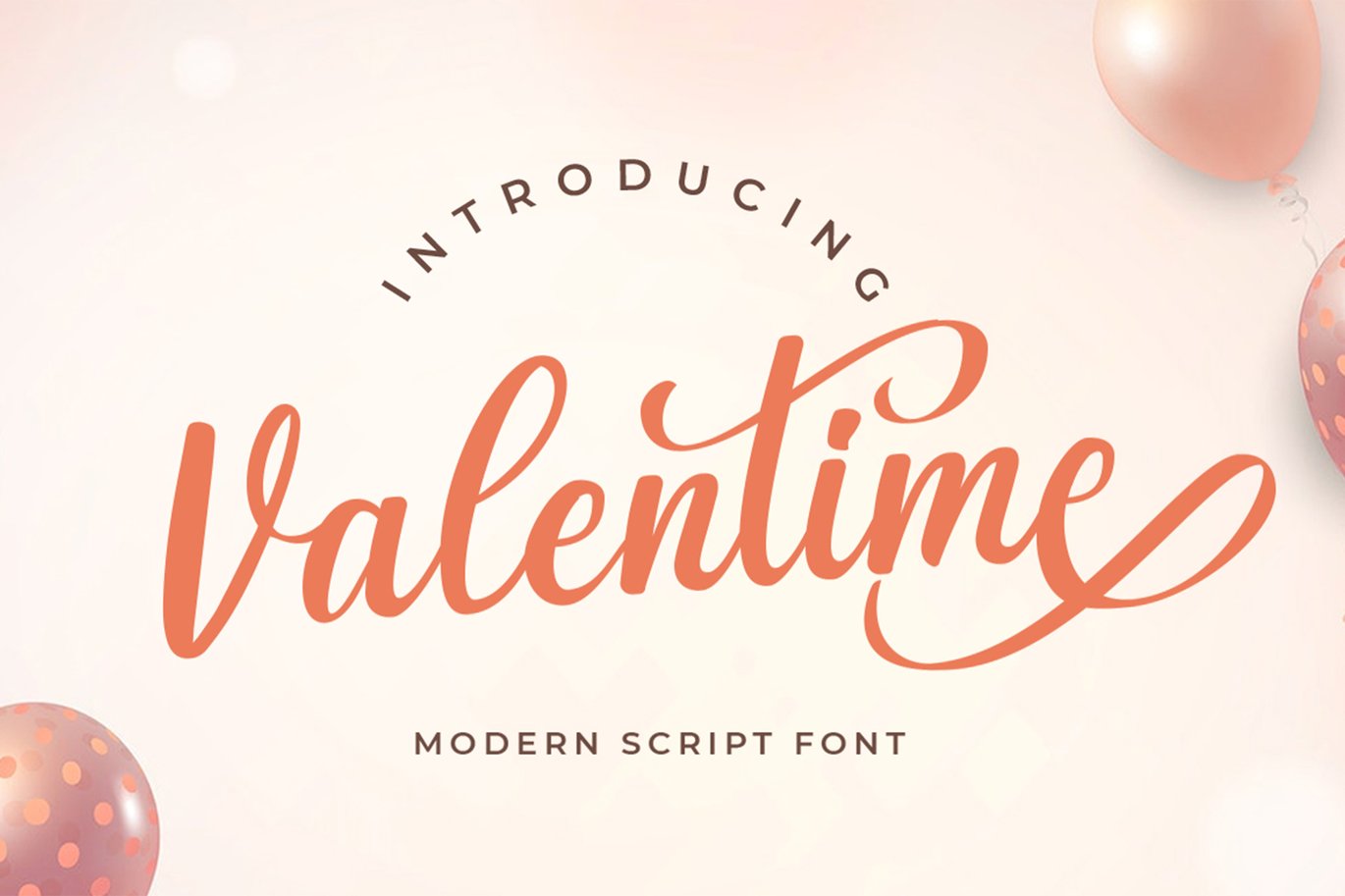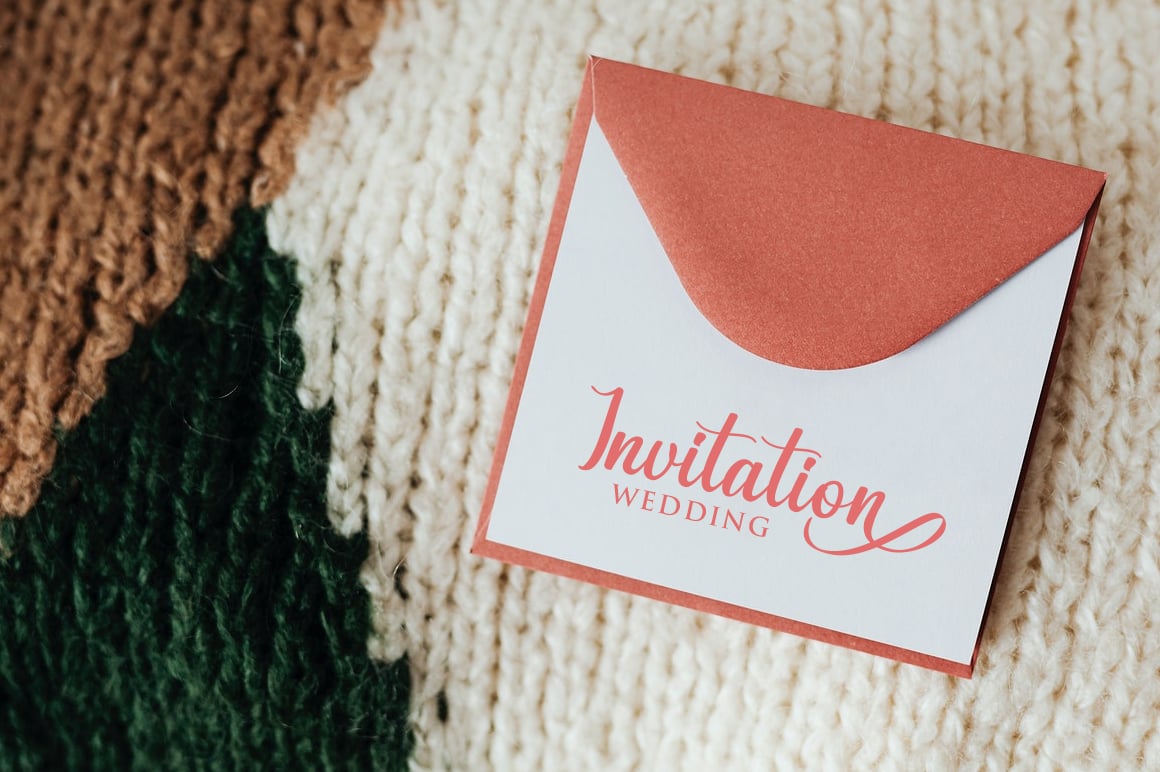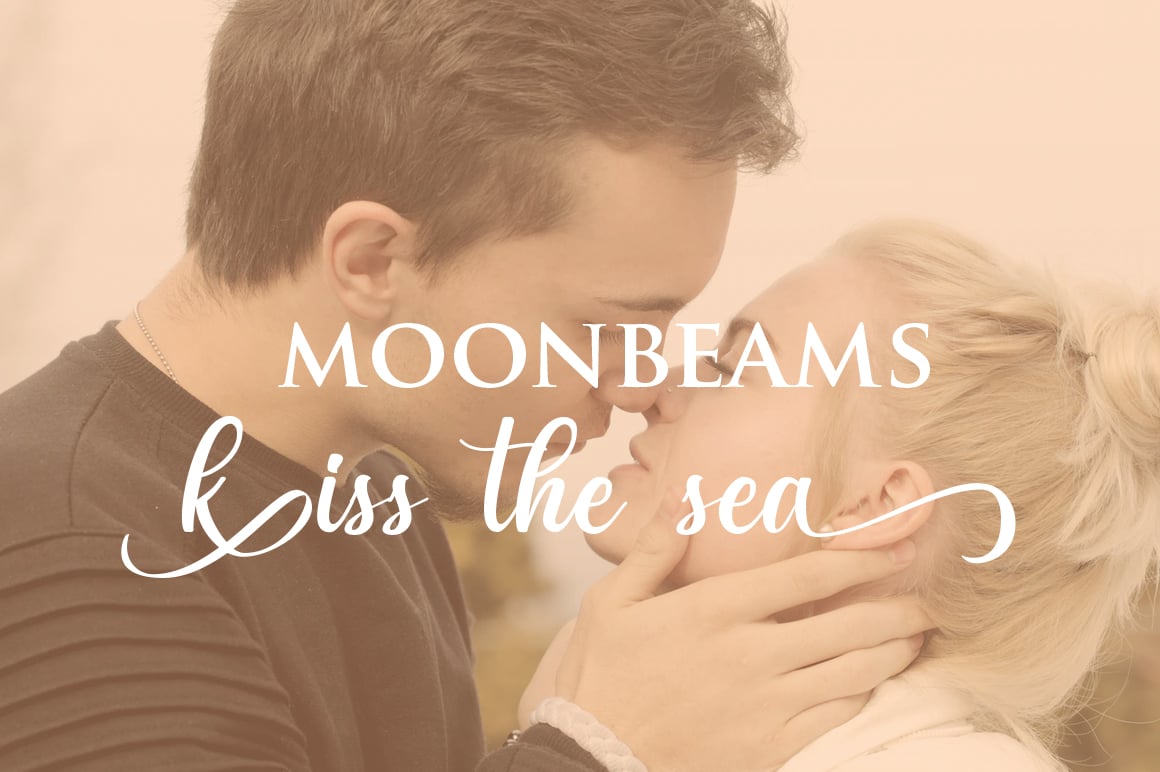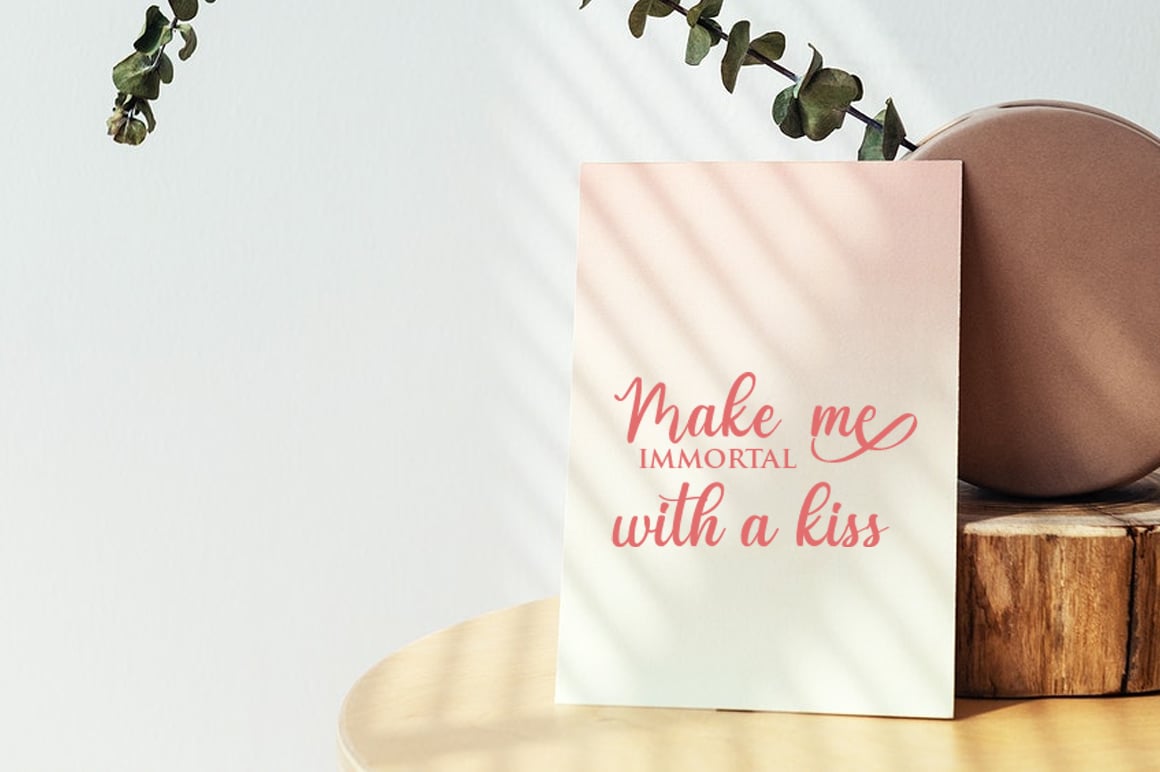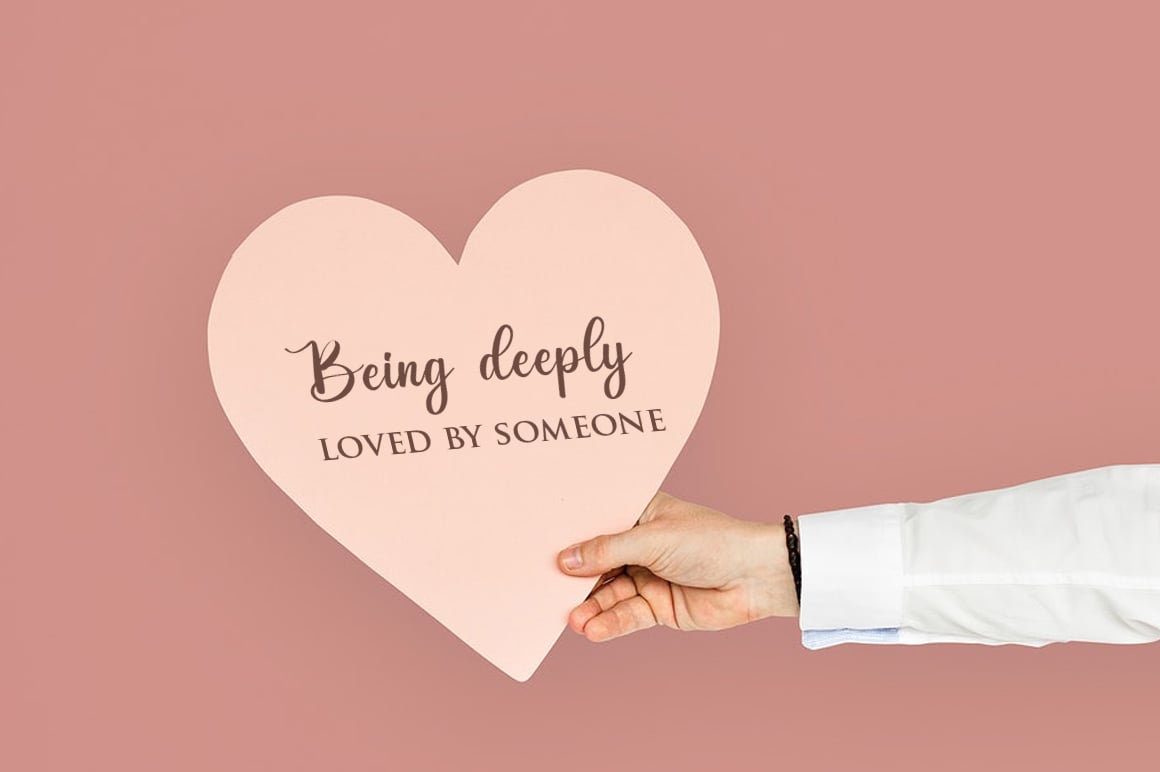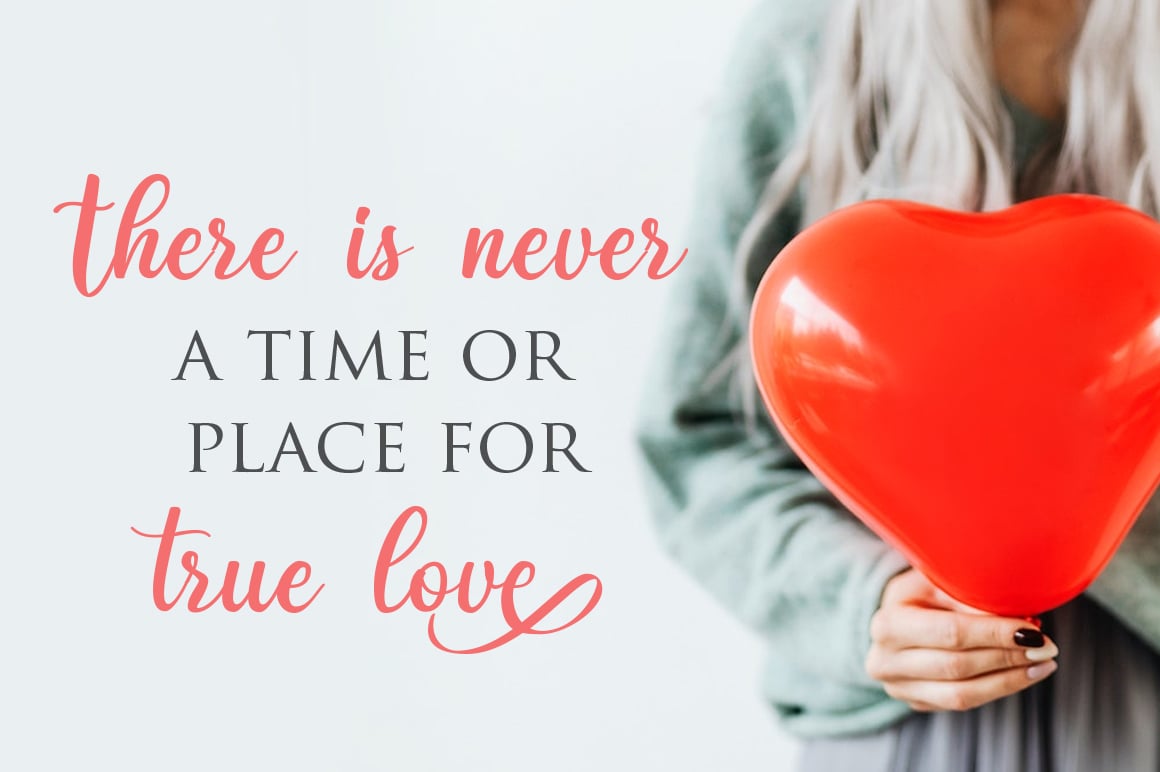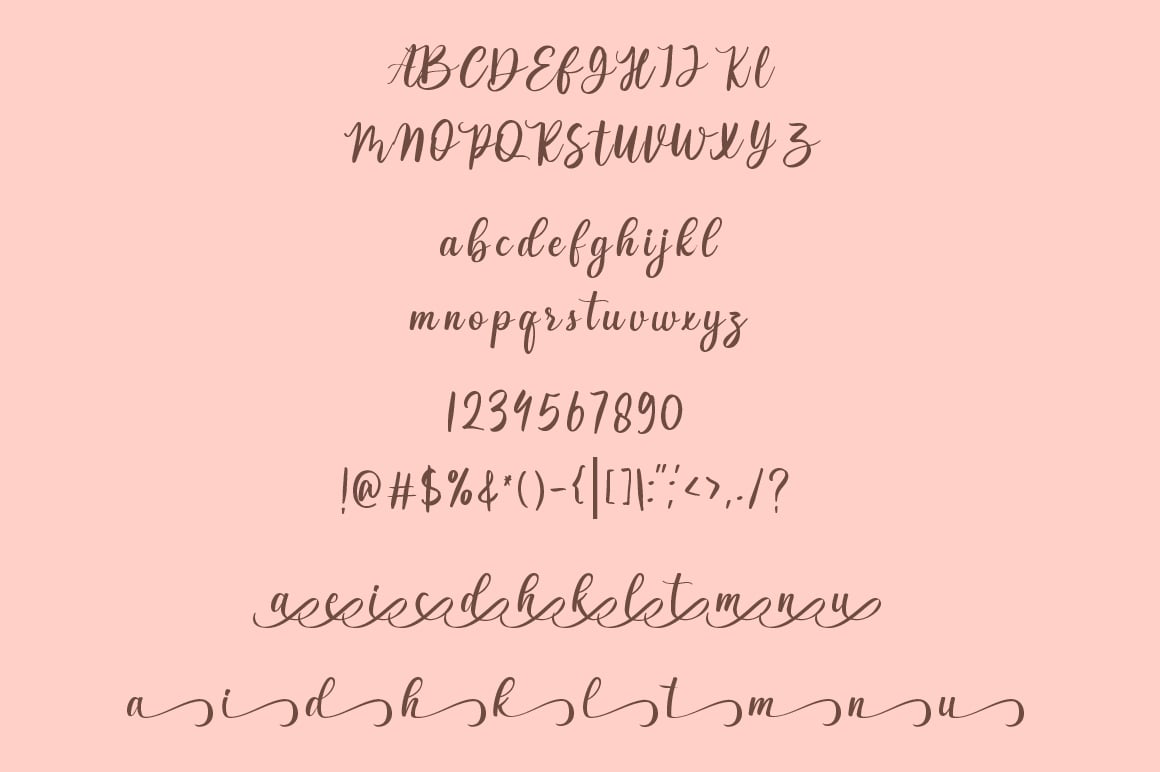
Valentime Cute Script Font
Valentime is a beautiful handwritten font, featuring a lovely flow. It will add a joyful touch to your crafting designs, school projects and anything else that may need a happy vibe! and use it to brighten up any crafting project!